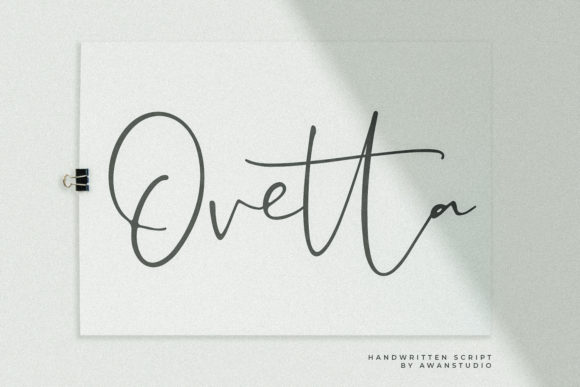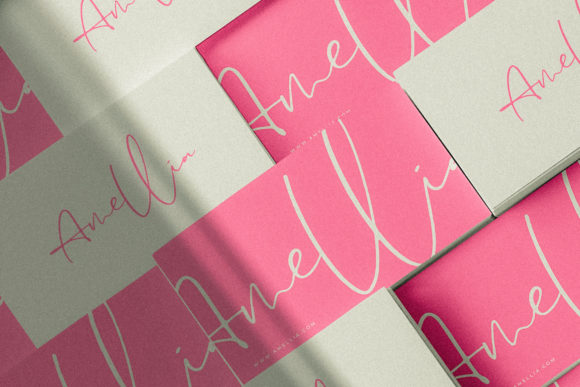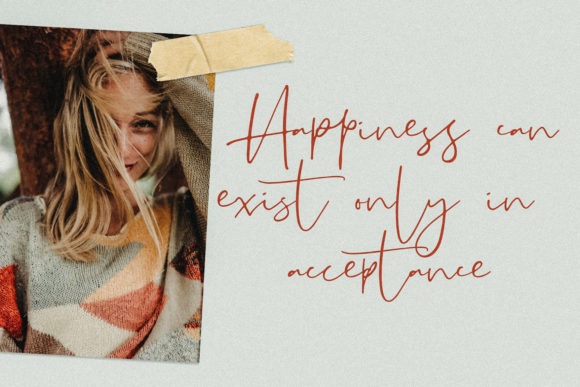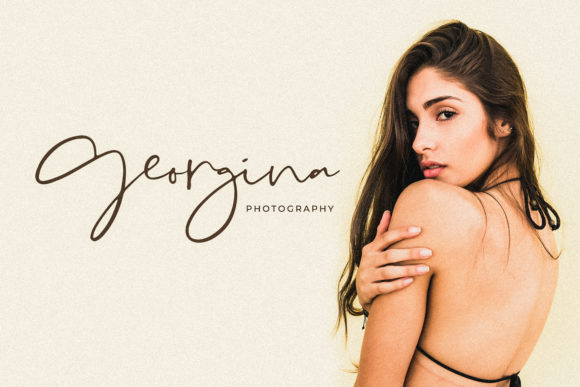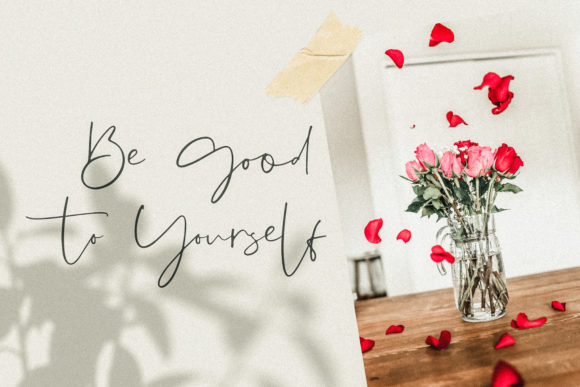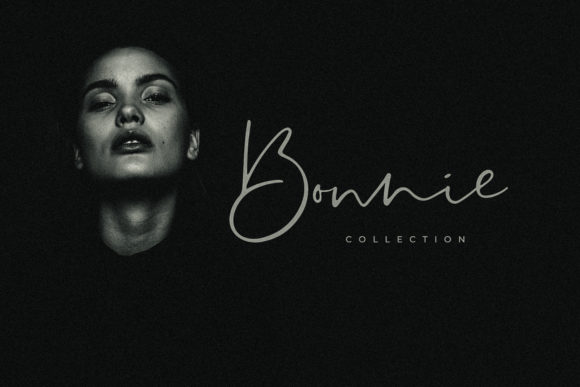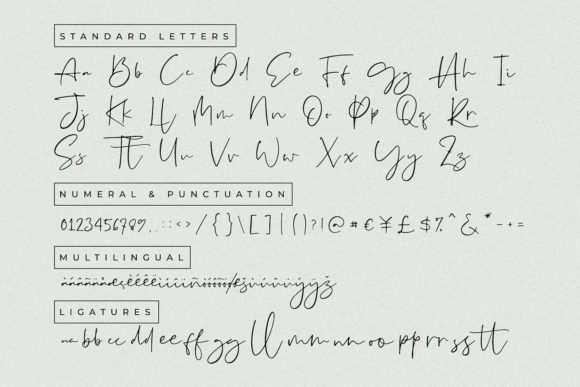
HomeScript FontsOvetta Font Script Fonts Ovetta Font FacebookXPinterestWhatsApp Ovetta Font Poster 2 Ovetta Font Poster 3 Ovetta Font Poster 4 Ovetta Font Poster 5 Ovetta Font Poster 6 Ovetta Font Poster 7 About Ovetta Font Ovetta is a light and beautiful handwritten font with a contemporary twist. Fall in love with its modern charm. DOWNLOAD NOW People also explored Homemade Font Grateful Season Script Font Font Selvia Cahya Font Pinnacle JY Crehme Honstlan Font Unmoor Family Font Learn Online Font Bow and Love Font Valentine Font 314 0 TagsOvetta Font Previous articleHarigu Duo FontNext articleHarendegha Script Font LEAVE A REPLY Cancel reply Comment: Please enter your comment! Name:* Please enter your name here Email:* You have entered an incorrect email address! Please enter your email address here Website: Save my name, email, and website in this browser for the next time I comment. Personal Use Free Baby Cute Personal Use Free Read more about this font Mariyam Personal Use Free Read more about this font Rheiborn Personal Use Free Read more about this font Rumaniaya Personal Use Free Read more about this font BLOG Elegant Wedding Invitation Fonts – Handwritten & Script Fonts Elegant Wedding Invitation Fonts Your wedding day is one of the most important moments of your life, and every detail matters—including your invitation design. Our... Top 7 Google Fonts Alternatives for Faster and Privacy-Friendly Web Design (2025) Fonts That Capture the Spirit of New York City Modern Sans-Serif Fonts That Brands Love in 2025